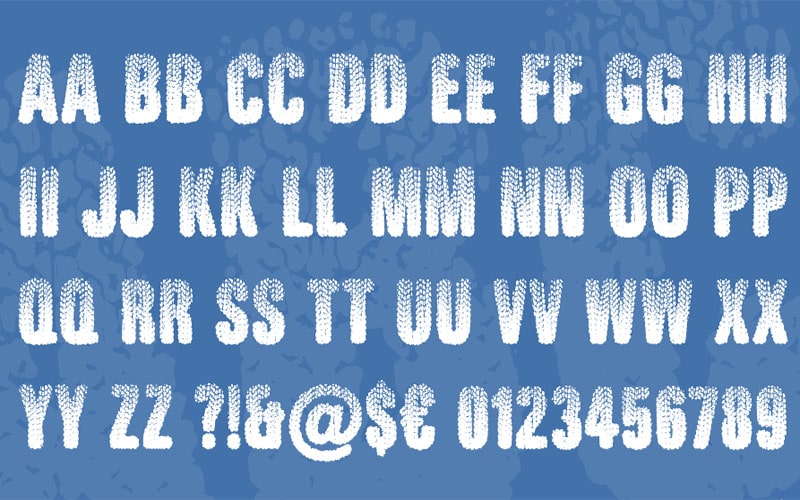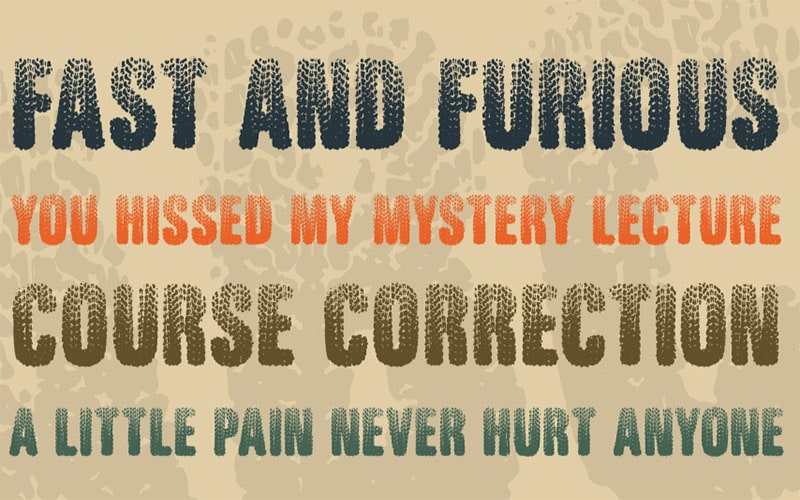
Rugged Ride Font is an exceptional typeface known for its bold and adventurous aesthetic. This font is perfect for a variety of creative projects, adding a sense of excitement and energy to any design.
It was designed by Cumberland Fontworks, a design studio renowned for creating unique and impactful fonts. Their fonts often emphasize strong visual elements and distinct styles, making them ideal that need to stand out.
The font is available in a variety of styles such as Rugged Ride regular, Rugged Ride bold, and Rugged Ride italic, each enhancing its versatility and appeal. Introduces a slanted style for a more dynamic and energetic look.
These styles make Rugged Ride suitable for a wide range of uses such as Logos and Branding, Posters and Flyers, Merchandise, Packaging, and Editorial Design.
Features bold, rough letterforms with rugged edges, making it perfect for designs that need to convey strength and adventure. Designed with careful attention to kerning and spacing, ensuring readability and visual harmony.
With the Rugged Ride font, you can achieve a striking and memorable look that resonates with audiences and makes a lasting impression. Embrace the bold and adventurous charm to elevate your design work to new heights.